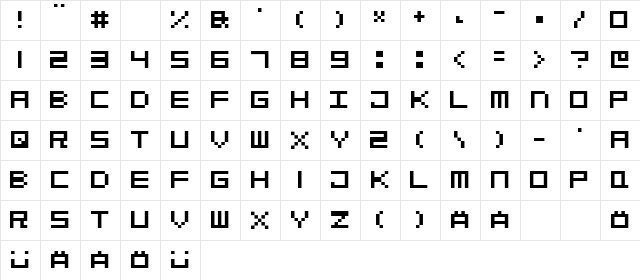
Pixel Ex Regular
Design Context for Pixel Ex Typeface
Pixel Ex is rooted in pixel-grid construction, making it a natural fit for game UI, retro computing aesthetics, and digital nostalgia projects.
A natural choice for retro game titles, chiptune music branding, 8-bit UI, and digital nostalgia projects.
Pro Tip: Pair Pixel Ex with flat colour palettes and simple geometric UI elements to reinforce its digital aesthetic.